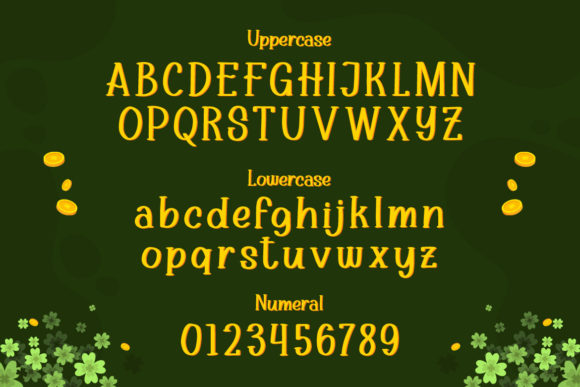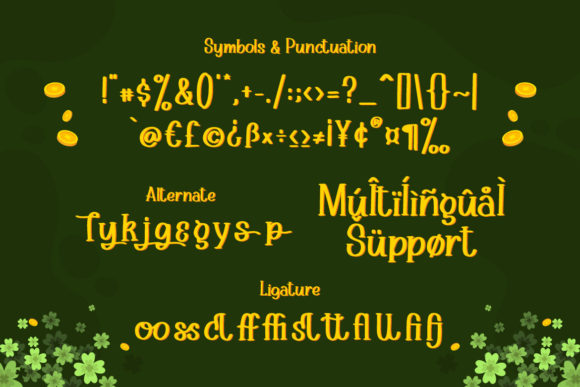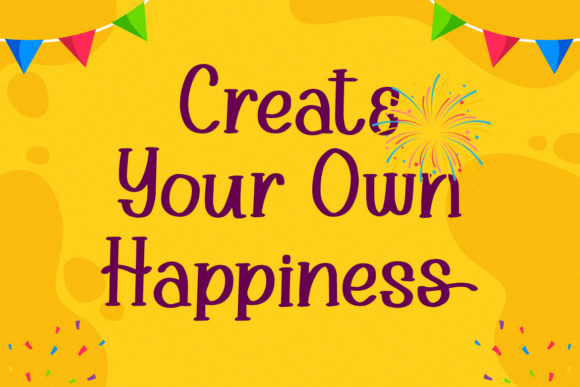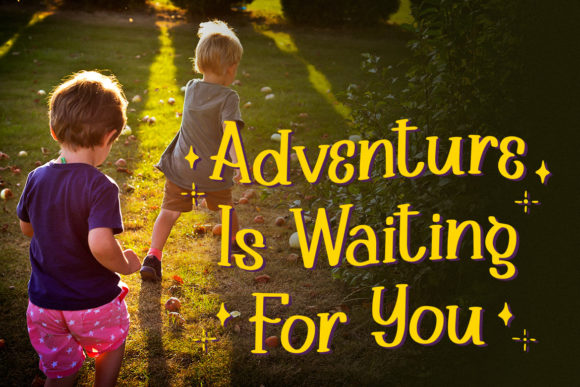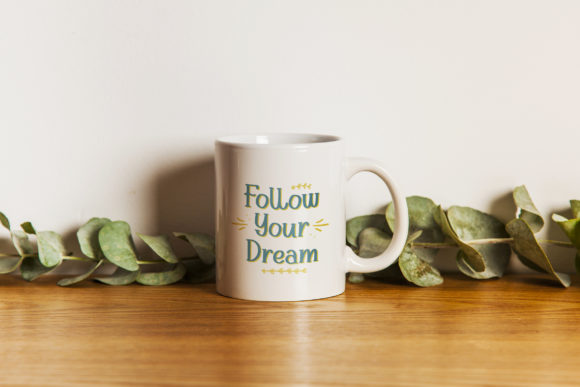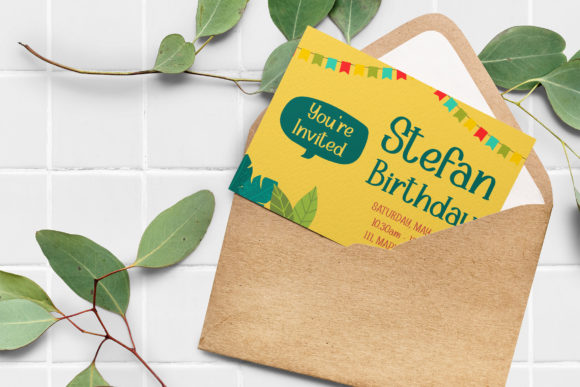
Introducing Golday Font: The Cool, Quirky, and Playful Serif Font You Need
Are you tired of using the same old fonts in your designs? Do you want to add a touch of personality and whimsy to your creations? Look no further than Golday Font, a cool, quirky, and playful serif font that’s sure to become a valuable asset in your font library.
The Perfect Font for Creative Projects
Golday Font is a versatile font that’s perfect for a wide range of creative projects. Whether you’re designing a logo, creating a brochure, or crafting a social media post, this font is sure to add a unique and eye-catching touch. Its quirky and playful personality makes it ideal for designs that require a bit of fun and flair, such as:
- Brochures and flyers
- Posters and prints
- Digital art and illustrations
What Makes Golday Font So Special?
So, what sets Golday Font apart from other fonts? Here are just a few of its standout features:
- Unique Serif Design: Golday Font features a distinctive serif design that’s both elegant and playful. The serifs add a touch of sophistication to the font, while the quirky shapes and lines keep it feeling fresh and fun.
- Highly Legible: Despite its playful personality, Golday Font is highly legible, even at small sizes. This makes it perfect for use in body text, headlines, and titles.
- Versatile: Golday Font is a versatile font that works well in a wide range of design contexts. Whether you’re creating a formal or informal design, this font is sure to adapt.
Enhance Your Creations with Golday Font
Golday Font has the potential to enhance any creation, regardless of the topic or theme. Here are just a few ways you can use this font to take your designs to the next level:
- Add Personality to Your Designs: Golday Font is the perfect way to add a touch of personality to your designs. Its quirky and playful personality makes it ideal for designs that require a bit of fun and flair.
- Create Eye-Catching Headlines: Use Golday Font to create eye-catching headlines that grab attention and draw the reader in. The font’s unique serif design and playful personality make it perfect for use in titles and headings.
- Elevate Your Branding: Golday Font is a great choice for branding and logos, as it adds a touch of sophistication and elegance to any design.
Tips for Using Golday Font
Here are a few tips for getting the most out of Golday Font:
- Experiment with Different Sizes: Golday Font works well at a wide range of sizes, from small body text to large headlines. Experiment with different sizes to find the one that works best for your design.
- Pair it with Other Fonts: Golday Font works well when paired with other fonts, especially sans-serif fonts. Try pairing it with a clean and simple font to create a striking contrast.
- Use it in Digital and Print Designs: Golday Font is perfect for use in both digital and print designs. Use it in social media graphics, brochures, posters, and more.
In conclusion, Golday Font is a cool, quirky, and playful serif font that’s sure to become a valuable asset in your font library. Its unique design, high legibility, and versatility make it perfect for a wide range of creative projects. Whether you’re a designer, crafter, or DIY enthusiast, Golday Font is a great choice for adding a touch of personality and whimsy to your creations.